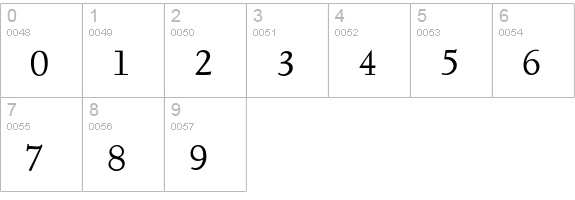
KaatskillL Font Details
Introducing KaatskillL, a stunningly unique font that will captivate and inspire with its distinct and artistic design. With each letter meticulously crafted to perfection, this font exudes elegance and sophistication, making it a perfect choice for a wide range of creative projects. The beauty of KaatskillL lies in its ability to effortlessly blend both modern and traditional elements, creating a harmonious balance that is visually pleasing to the eye. Its sleek lines and graceful curves add a touch of fluidity, while the bold and strong letterforms command attention. But what truly sets KaatskillL apart is its versatility. Whether you're working on a logo design, branding materials, invitations, or even a website, this font will effortlessly adapt to any project, enhancing its overall aesthetic appeal. And the best part? KaatskillL is available for free download exclusively at FontsMarket.com. That's right, you can now experience the sheer beauty and elegance of this font without any cost. So why wait? Unleash your creativity and download KaatskillL today, and let its timeless charm elevate your designs to new heights.